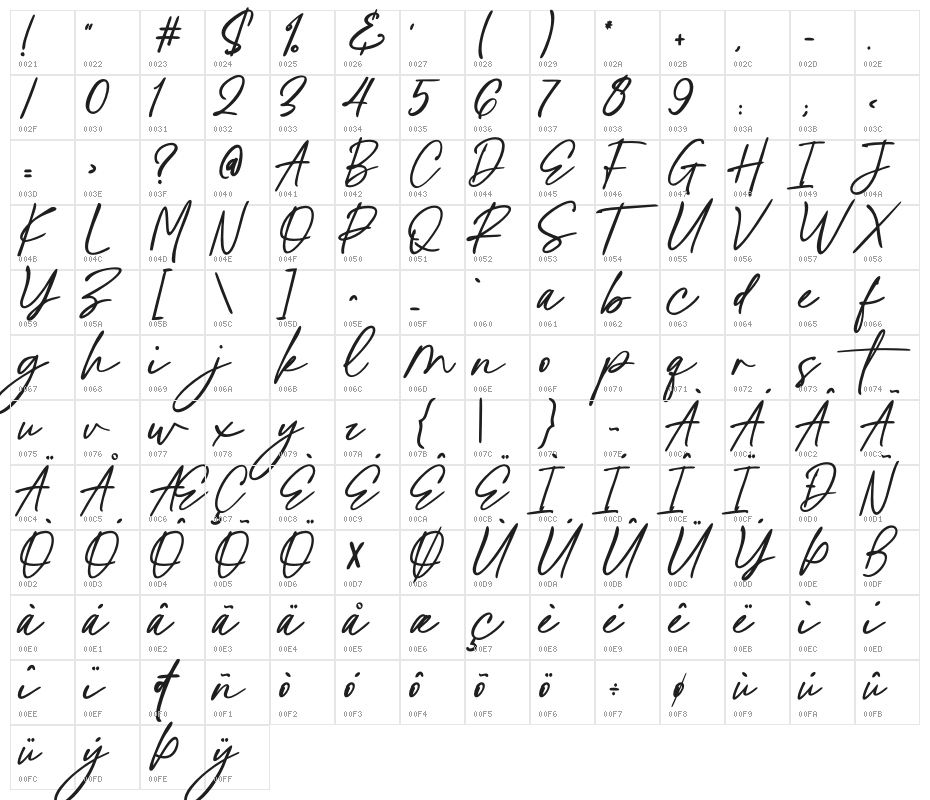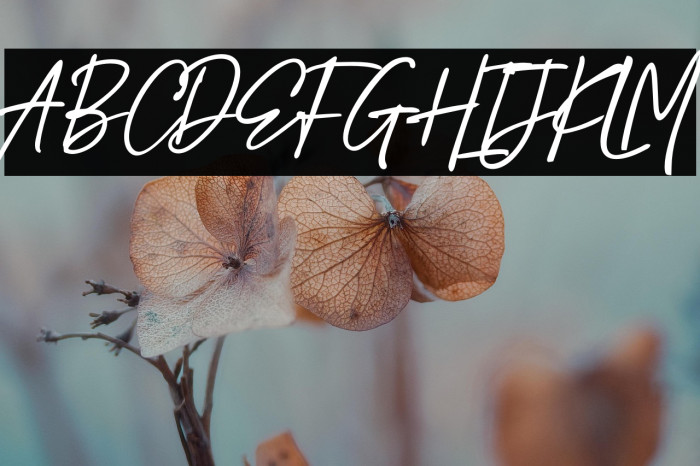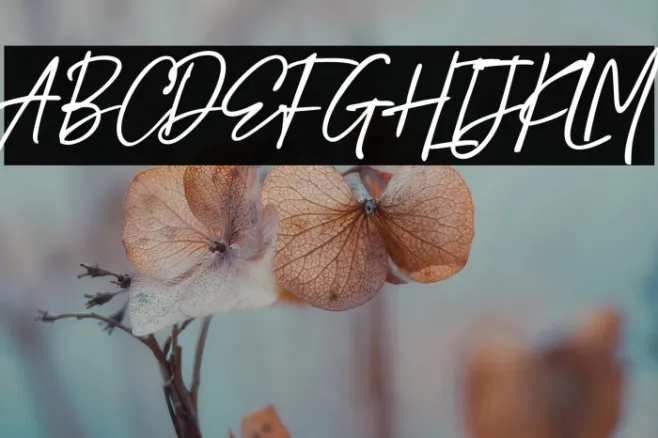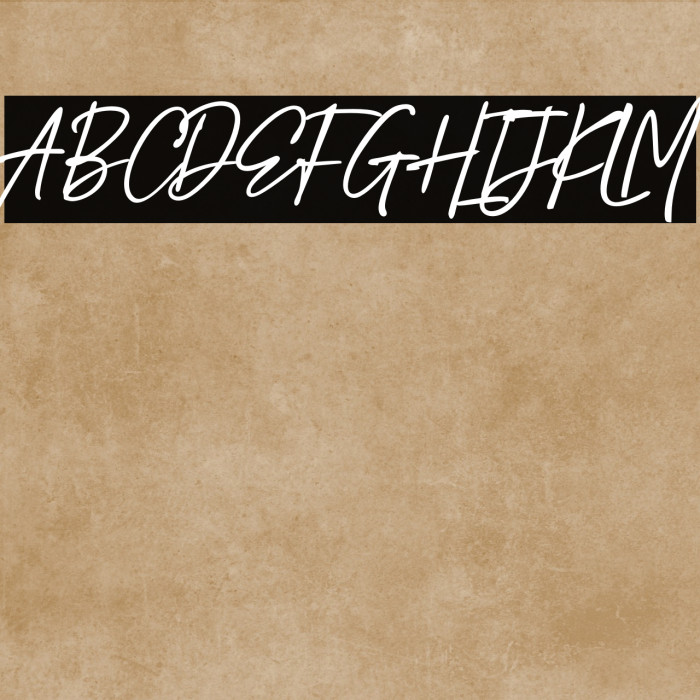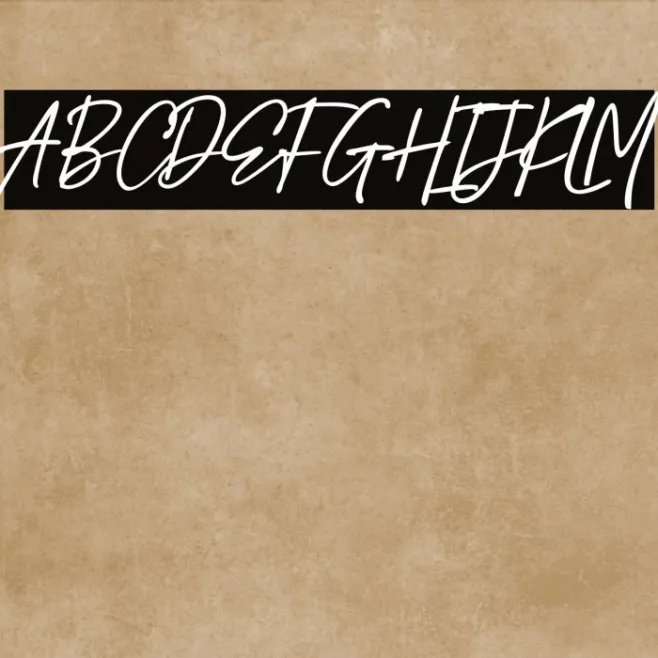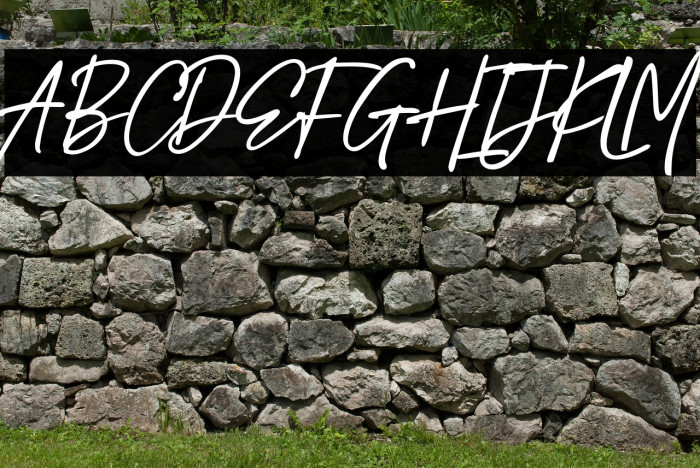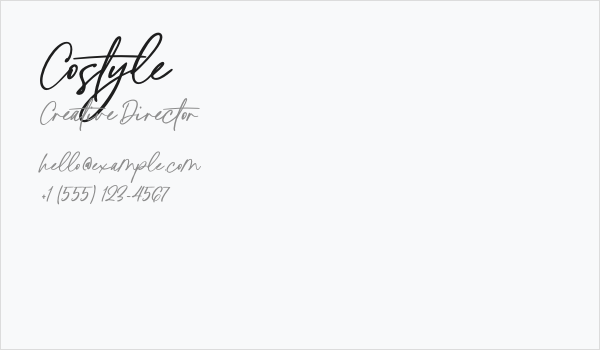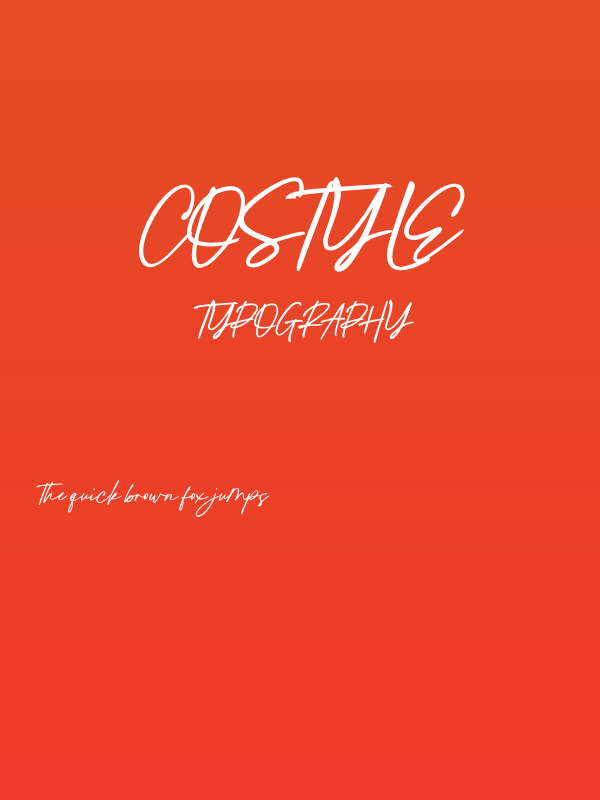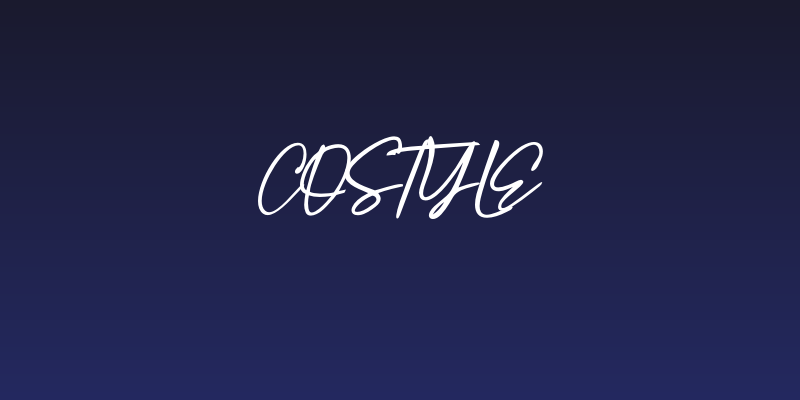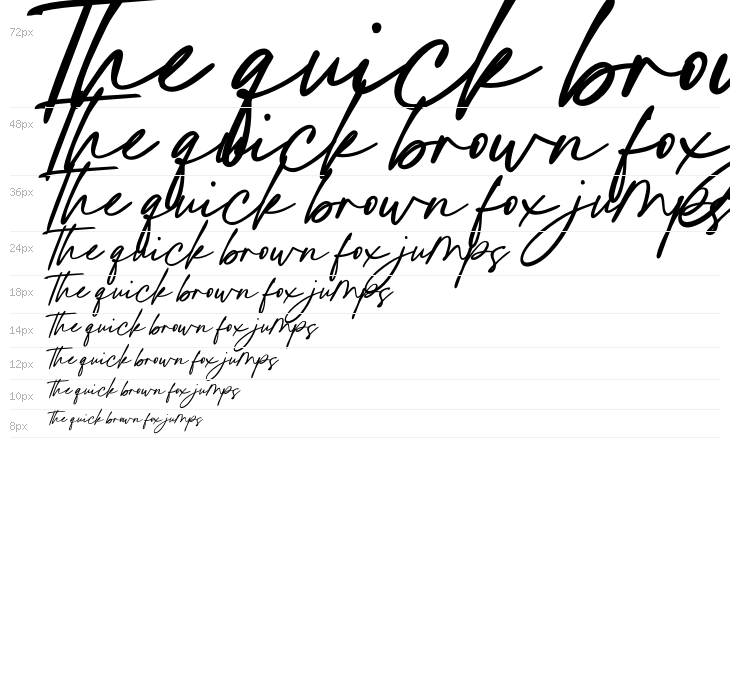
Costyle Font
Costyle Description
This font exudes a lively and dynamic energy with its fluid, cursive style. The letters are connected in a smooth, flowing manner, reminiscent of elegant handwriting. The uppercase characters maintain a consistent height, while the lowercase letters exhibit a playful bounce, adding to the font's charm. Numbers and special characters are seamlessly integrated, maintaining the same cursive flair. The overall appearance is both sophisticated and approachable, making it suitable for a variety of creative projects.
| Proposed Projects | Ideal for wedding invitations, personal branding, greeting cards, and artistic projects requiring a personal touch. |